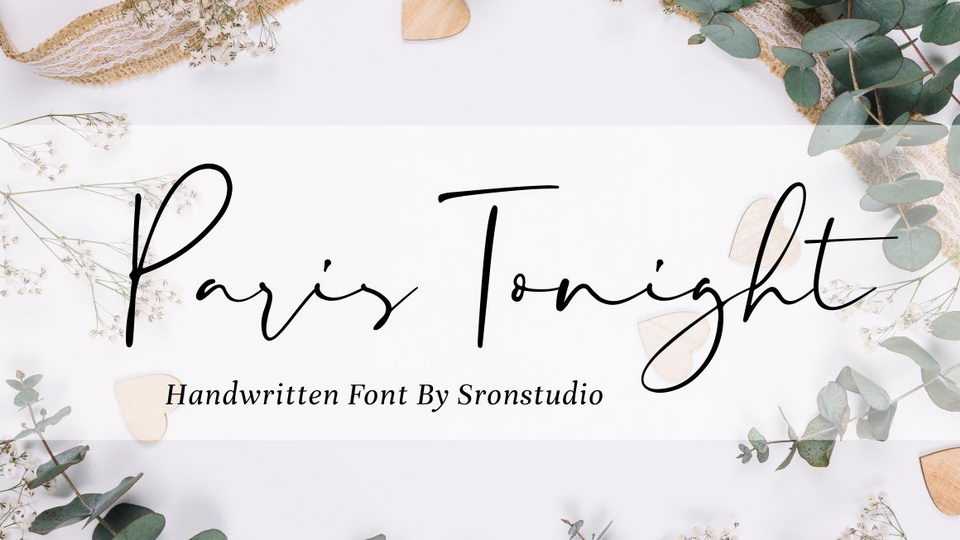
Download Paris Tonight font, a stylish natural handwritten script. Paris Tonight is perfect for signature style logo, cards, invitations, wedding, social media posts, advertisements, photography watermark and more.
Designer: Sronstudio